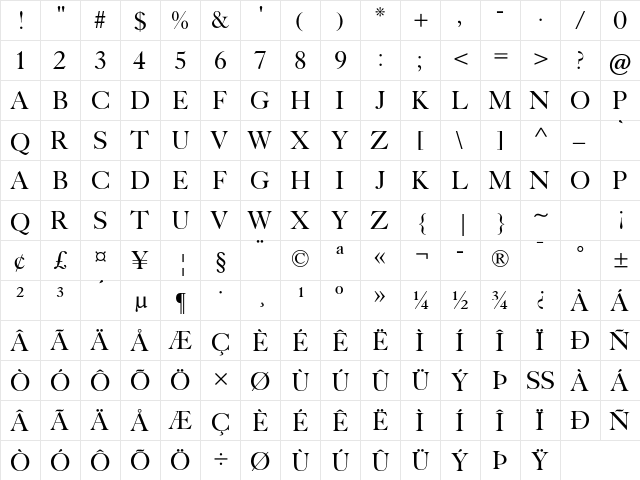
Caslon Titling MT Std Regular
Design Context for Caslon Titling MT Std Typeface
Caslon Titling MT Std takes a measured approach to typography — its balanced proportions and neutral character make it a reliable workhorse for both digital and print work.